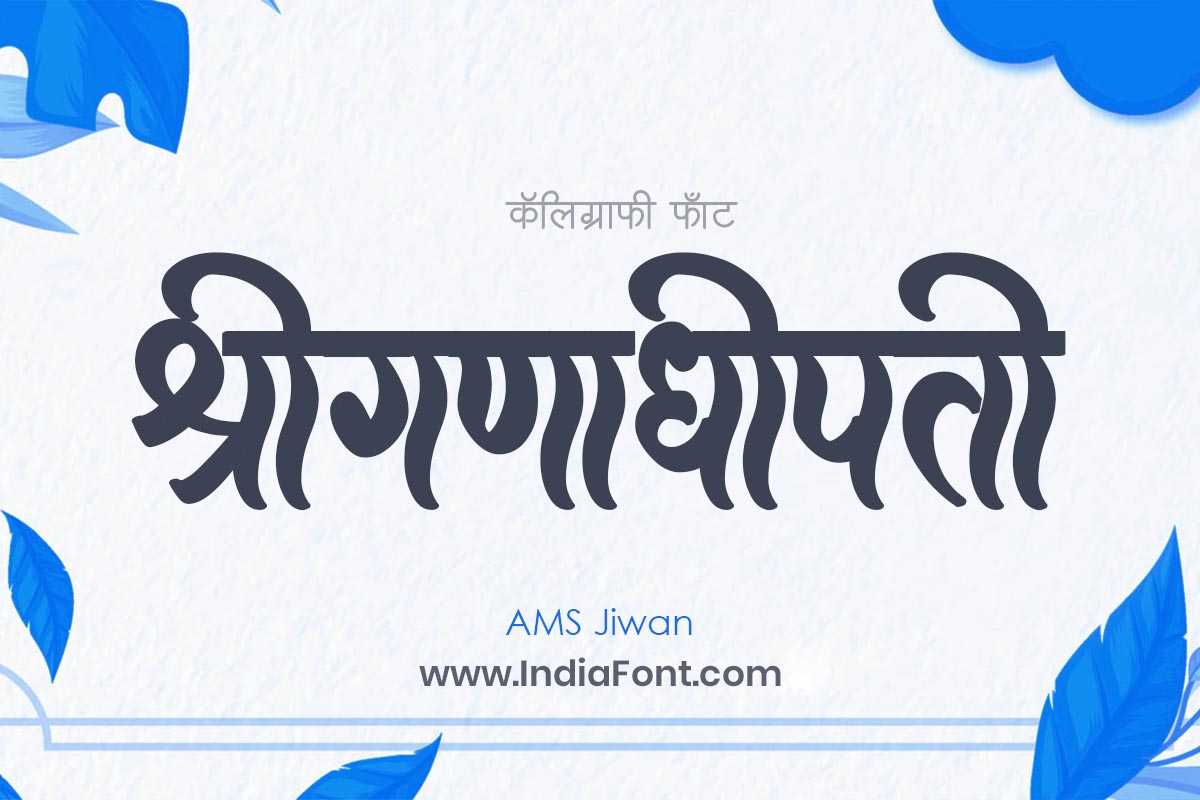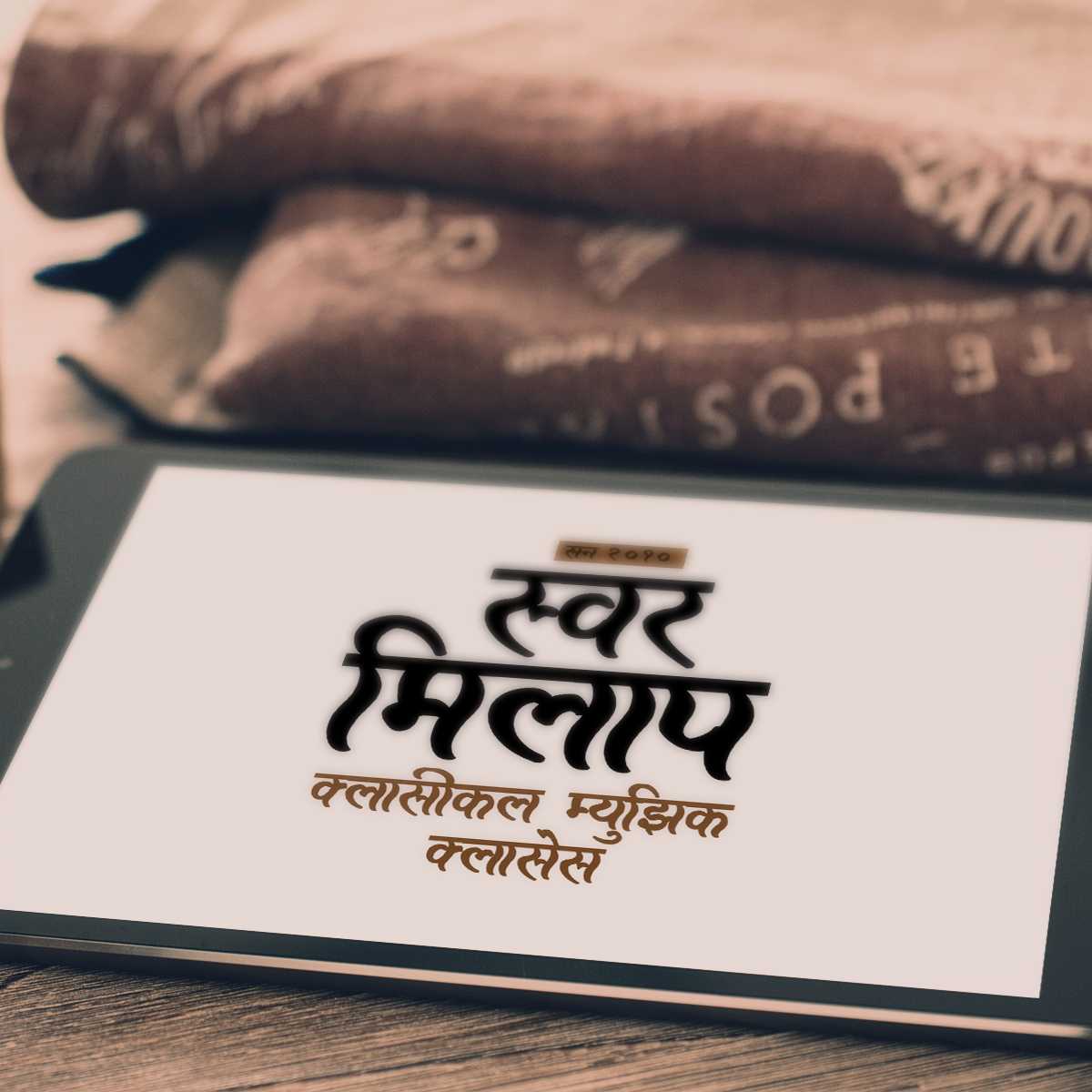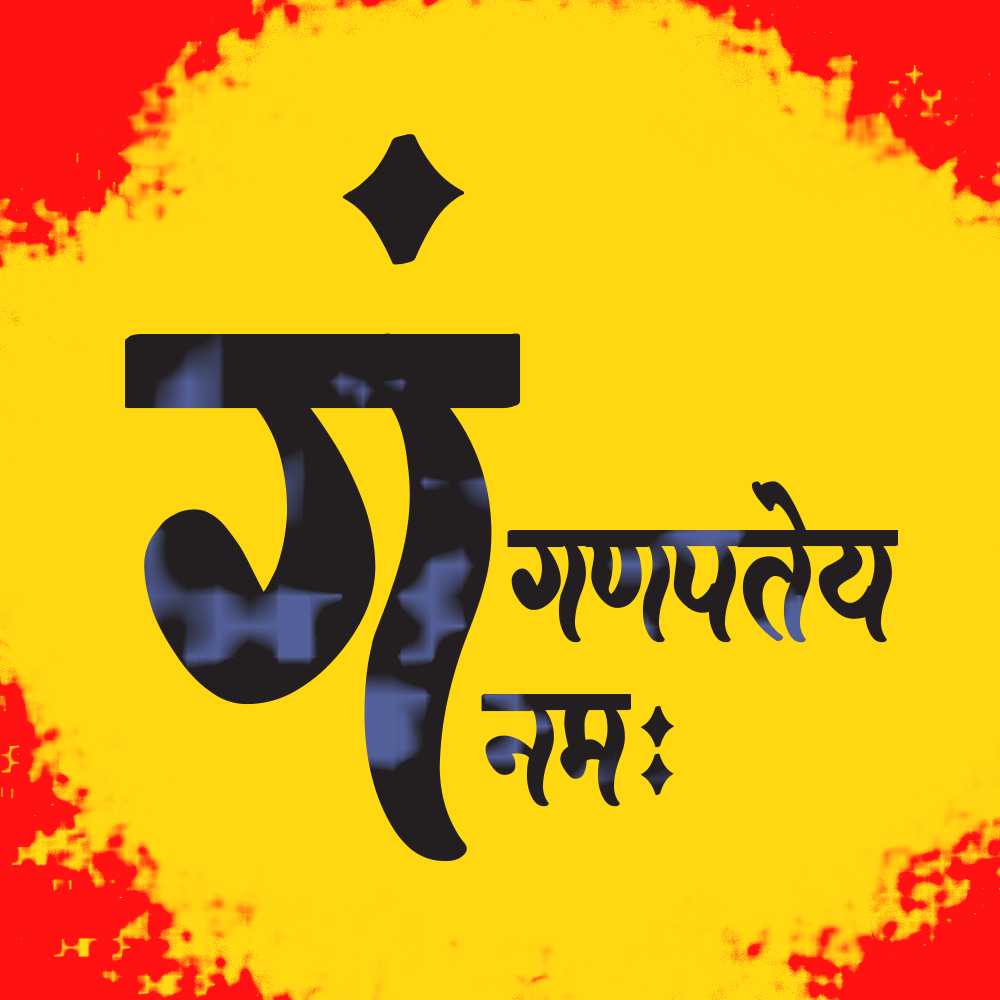
AMS Jiwan
Master AMS Jiwan: vibrant calligraphy font capturing spirit of vitality and positivity. Perfect for Hindi & Marathi designs with dynamic letterforms and uplifting style.
About AMS Jiwan Font
Master AMS Jiwan: vibrant calligraphy font capturing spirit of vitality and positivity. Perfect for Hindi & Marathi designs with dynamic letterforms and uplifting style. This calligraphy font combines elegance with functionality, making it perfect for various design applications.
AMS Jiwan is a professionally crafted calligraphy typeface that brings clarity and style to your projects. Designed with attention to detail, it supports hindi and marathi characters flawlessly.
Whether you're working on wedding-materials, invitations, headers, or other creative projects, AMS Jiwan delivers consistent performance across both digital and print media. This carefully designed typeface ensures readability and visual appeal in all your design work.
About AMS Jiwan Typography Style
AMS Jiwan is a professionally crafted calligraphy font that exemplifies modern Hindi typography design. This free font is perfect for designers seeking impactful poster and display applications.
Available in 1 weight and supporting hindi, marathi scripts, AMS Jiwan offers exceptional versatility for both digital and print media. Whether you're working on wedding-materials, invitations, headers, this carefully designed typeface ensures consistent quality and professional results across all your typography projects.